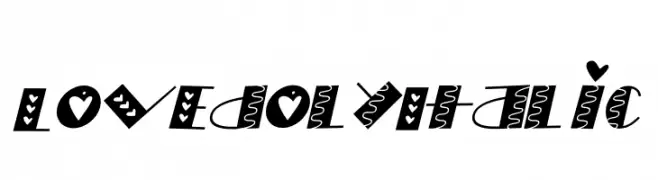
A playful, heart-themed decorative font with bold, whimsical characters.
A playful, decorative font with heart motifs and bold, whimsical characters.
A playful, heart-themed decorative font with bold, italicized characters.